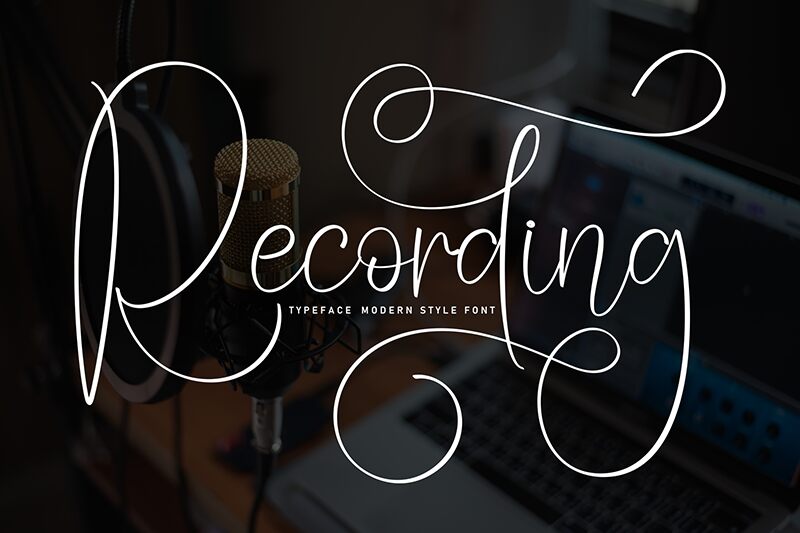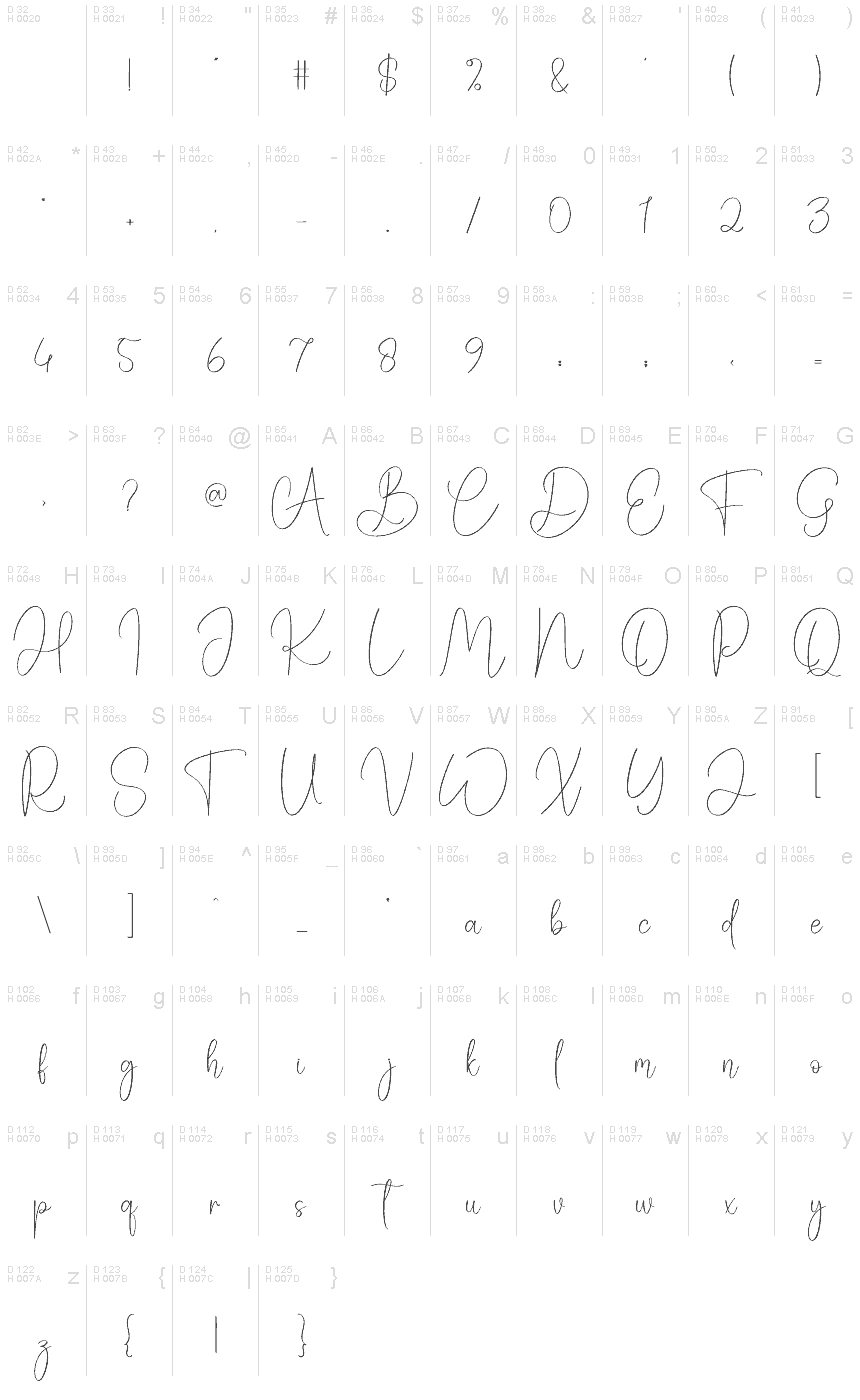
Recording
Recording font by Scratchones is a light calligraphy font that offers unbelievable elegance and themes of fluidity. It combines script style with modern touches, allowing for an expressive design which the all free handwritten font manages to accomplish within seconds.
Recording is a pleasant choice for invitation cards, menu designs, titles, ads and signage, branding projects such as logos and packaging designs, online platforms like websites and social media posts or even printed designs like magazines.